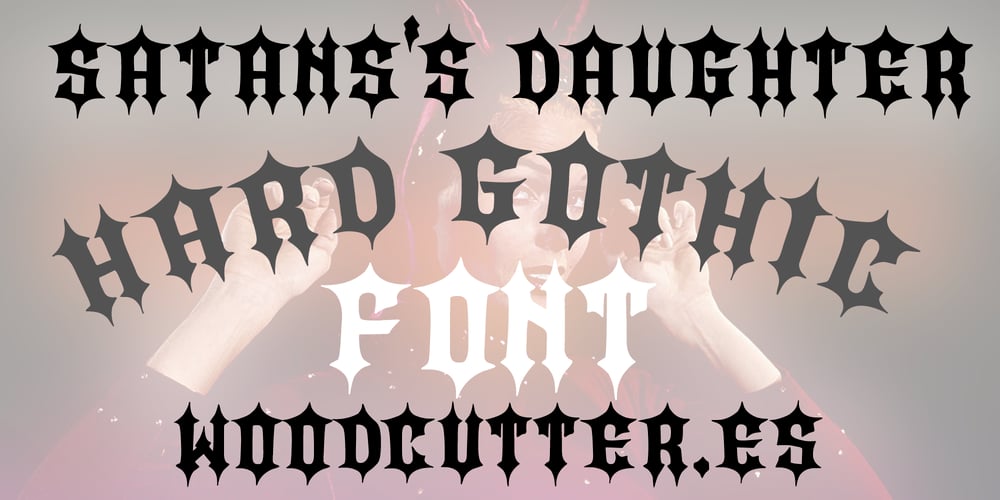
Satans Daughter
Satans Daughter font
Satans Daughter Font Family was designed by Jordi Manero and published by Woodcutter. Satans Daughter contains 1 styles and family package options. “Satan’s Daughter” is an all-uppercase font with a modern gothic look, inspired by the style of heavy metal bands. Each letter features sharp, pointed lines that evoke a sense of power and darkness. The font captures the essence of metal with its aggressive and dramatic aesthetic, ideal for designs aiming to convey a rebellious and strong attitude. “Satan’s Daughter” is perfect for album covers, concert posters, and any project needing a dark, bold touch.